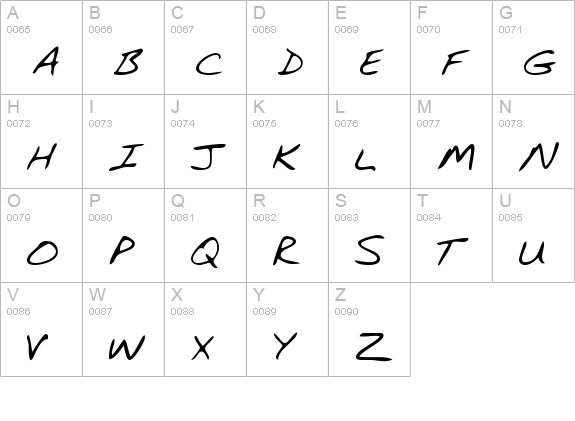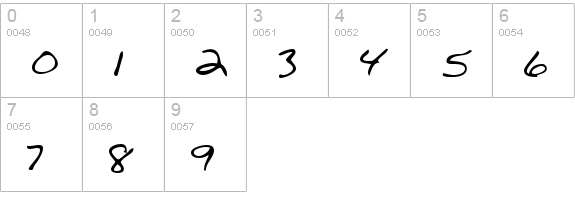
EliottsHand Regular is the standard, neutral variant in the EliottsHand typeface family \xE2\x80\x94 well suited to general body text, paragraphs, and standard typographic work.
EliottsHand Regular font is a charming and versatile typeface that exudes a sense of warmth and personality. With its handwritten appearance and unique style, EliottsHand Regular is perfect for adding a personal touch to any design project. Whether you're creating invitations, greeting cards, or social media graphics, this font will help your text stand out and make a lasting impression. Best of all, EliottsHand Regular is available for free download at FontsMarket.com. This means you can easily access this beautiful font and use it in your projects without any cost. Don't miss out on this opportunity to enhance your designs with the delightful EliottsHand Regular font!